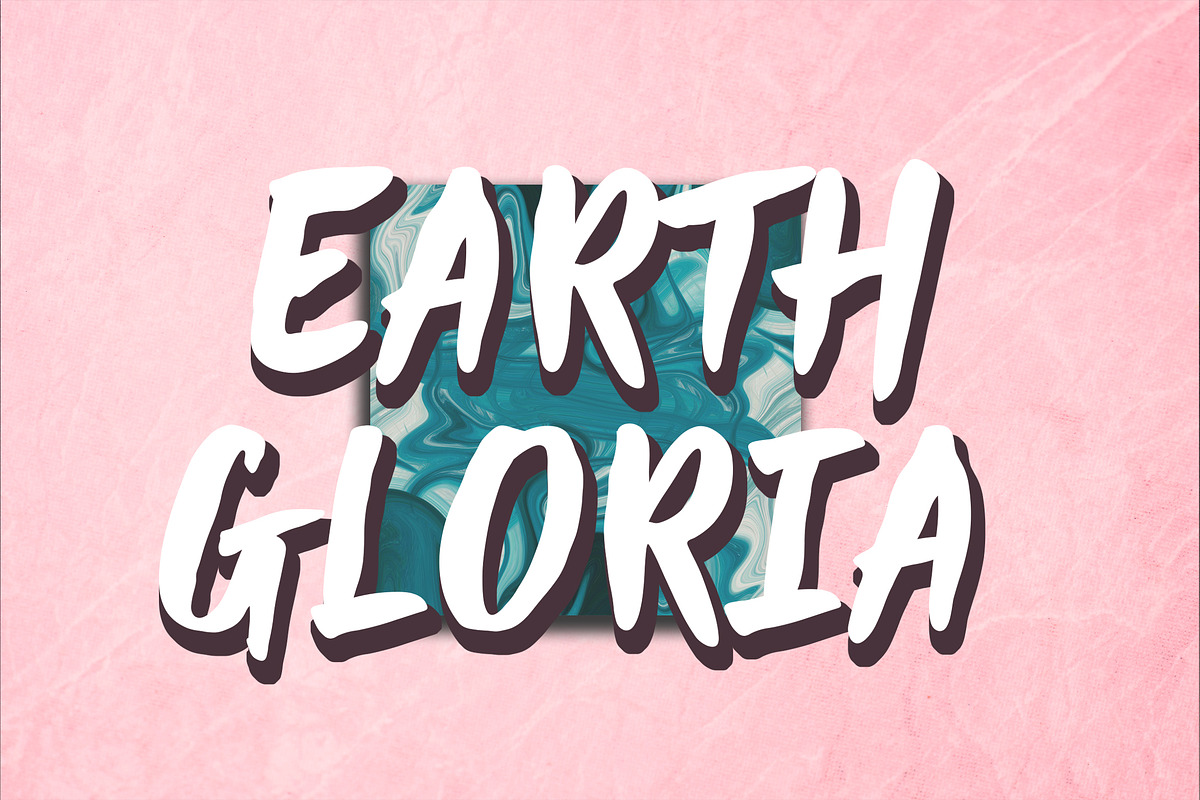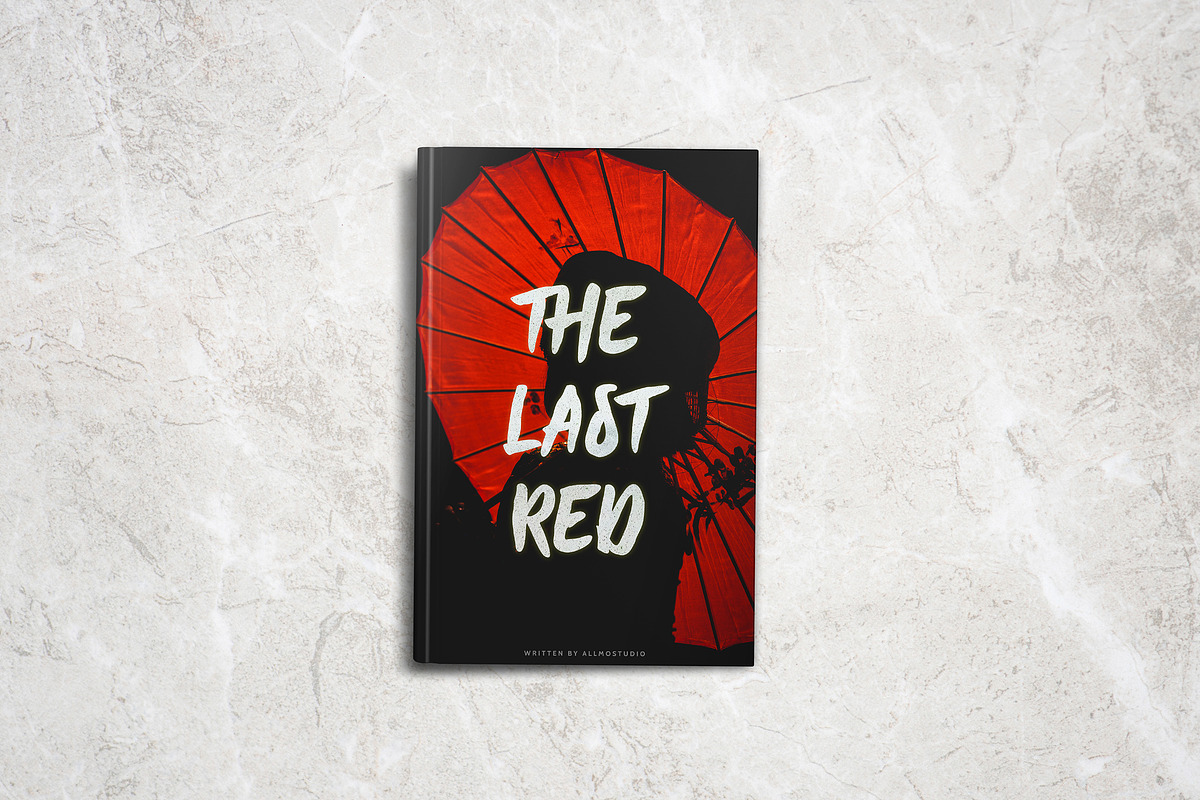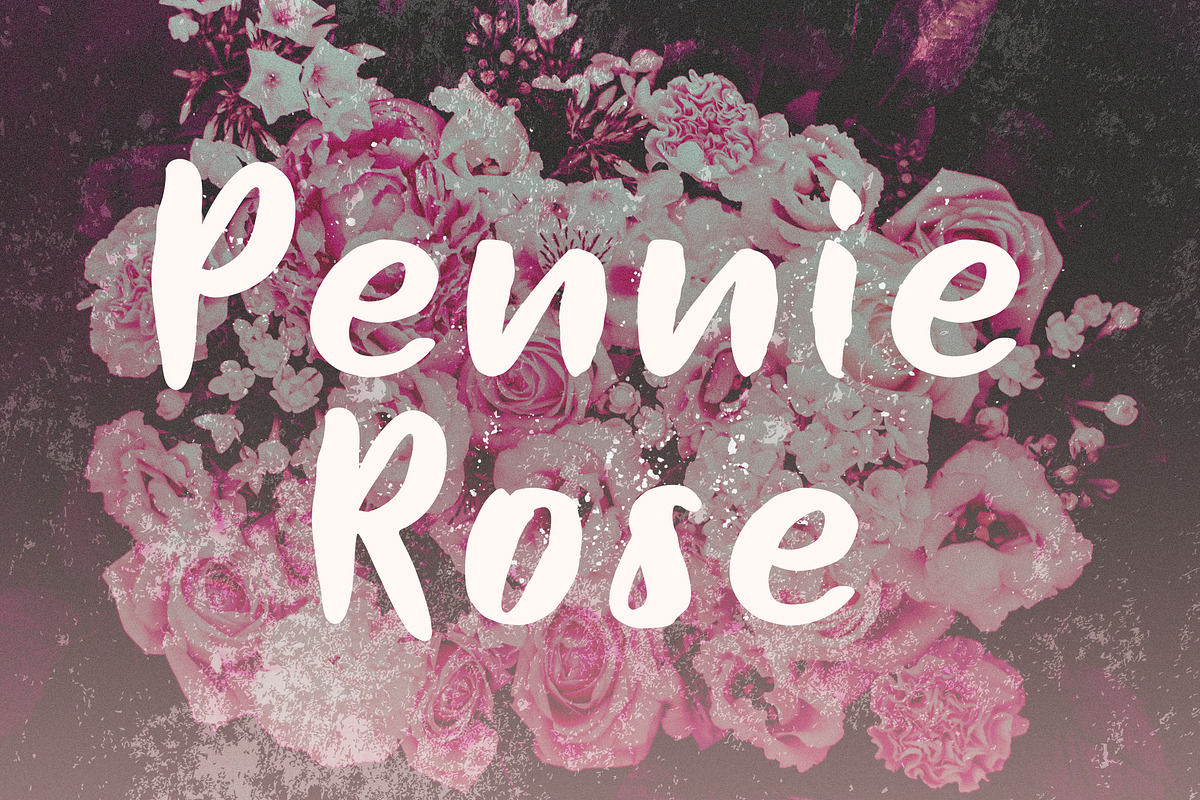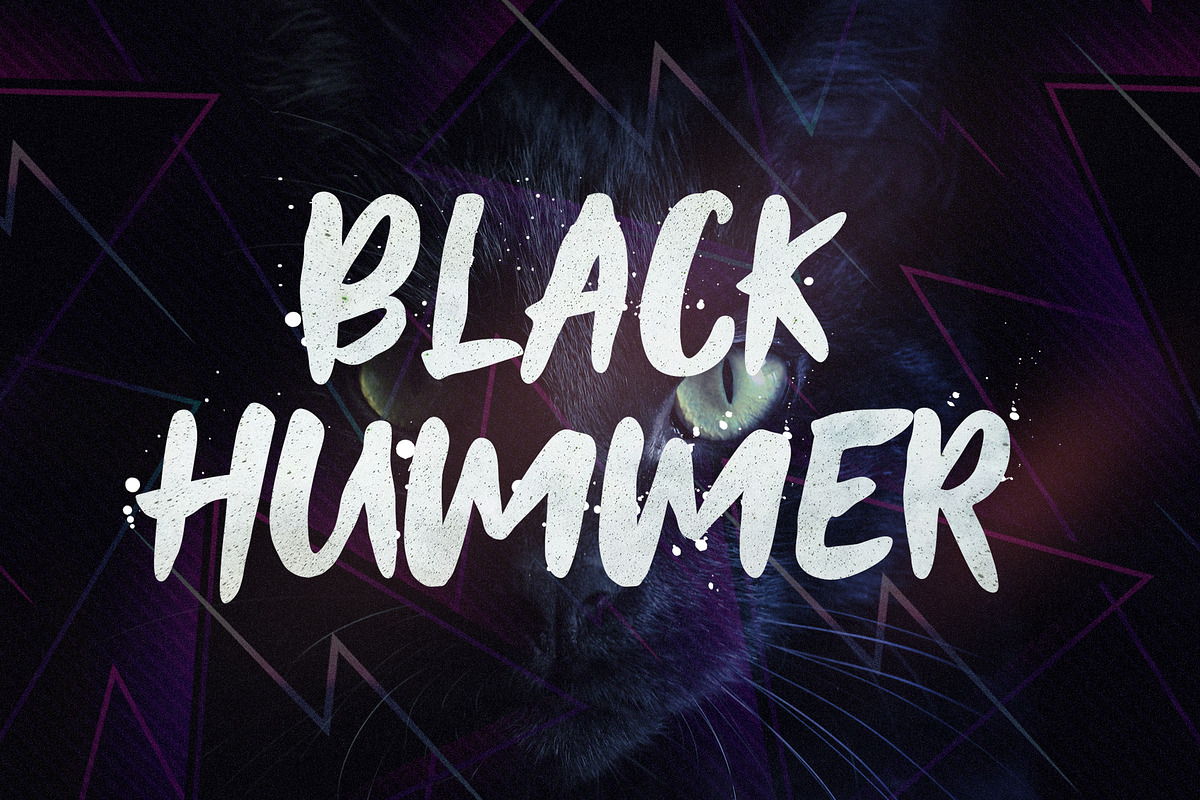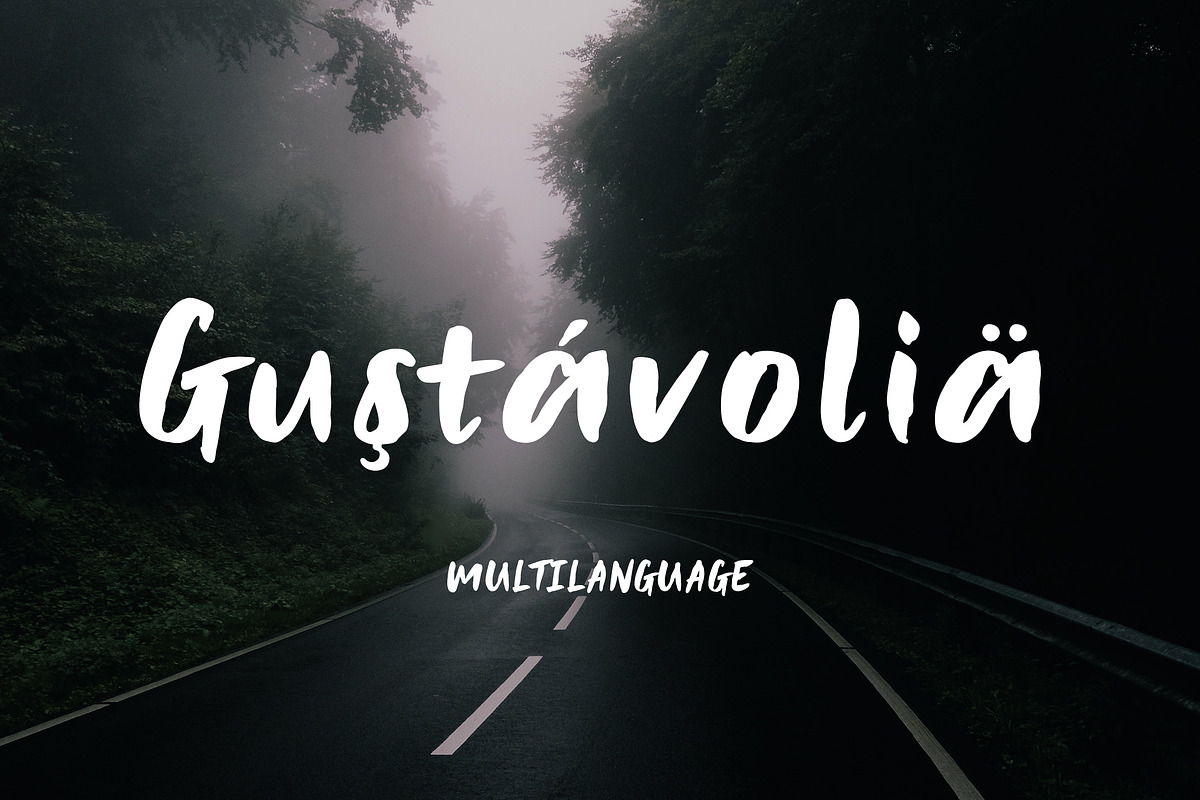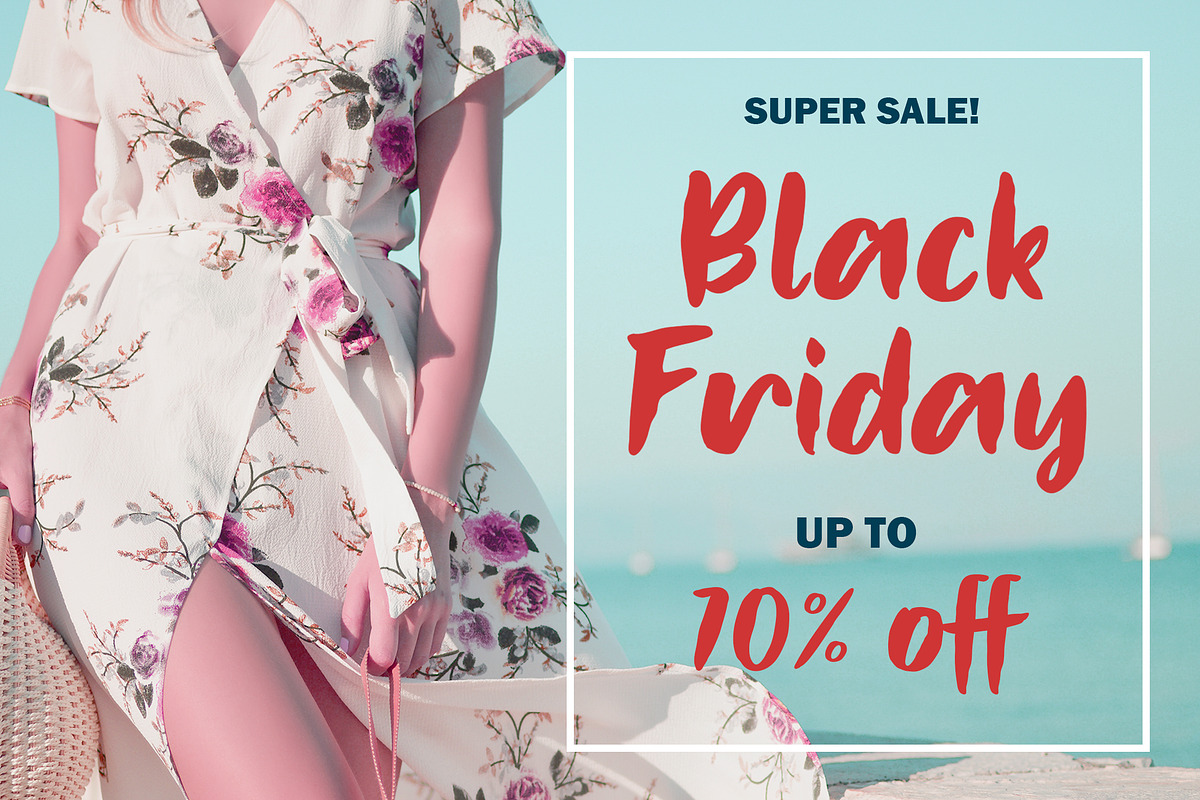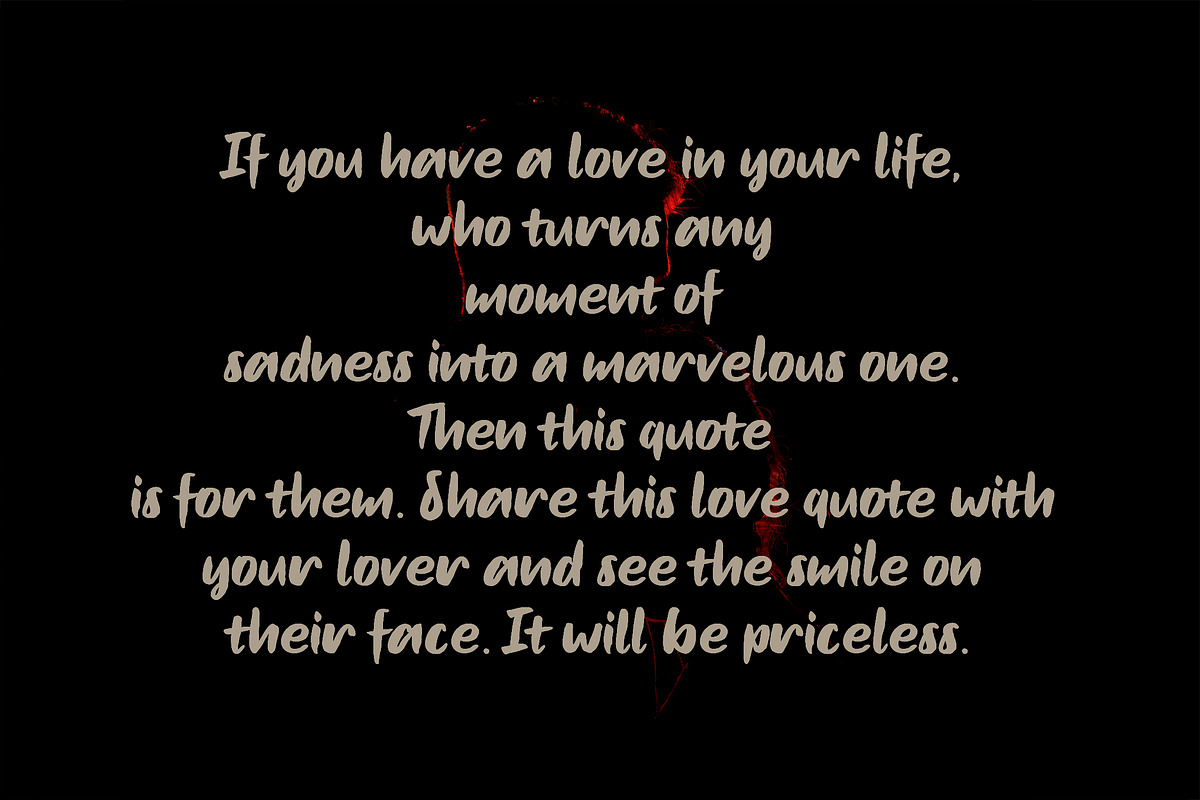
Bellarsky Evidence Font
Introducing BELLARSKY EVIDENCE FONT
Bellarsky Evidence is a casual softly brush font with a natural flow. i created Bellarsky Evidence inspired by summer atmosphere. i wanted to create a font, that has no boundaries, that perfectly fits for any purposes. Bellarsky is the perfect choice for personal branding projects, prints, merchandise, atmosphere and unique wedding invitations. And, of course, social media: Bellarsky + Instagram = Perfect couple. Finally, you can use it whatever you like, even as a modern and casual text overlay to any of your images.
Why Bellarsky Evidence Font is worth a look
Bellarsky Evidence Font by Allmostudio fits naturally into Branding, posters, packaging, typography.